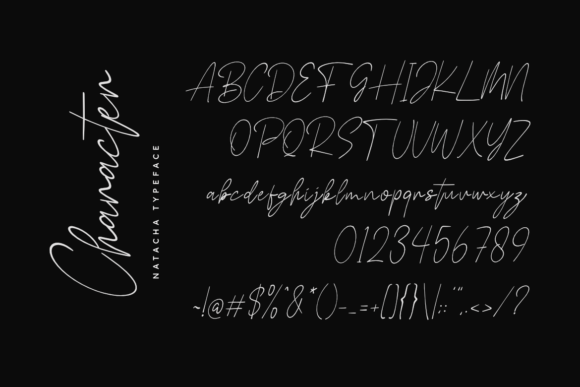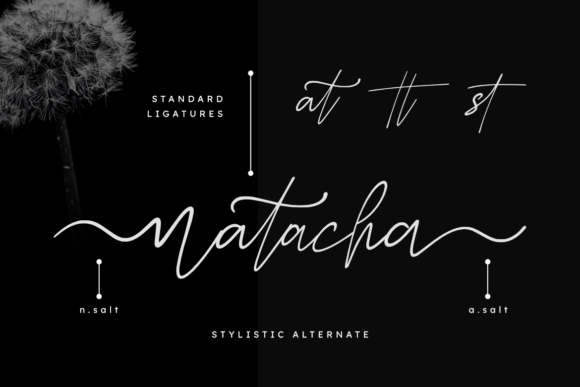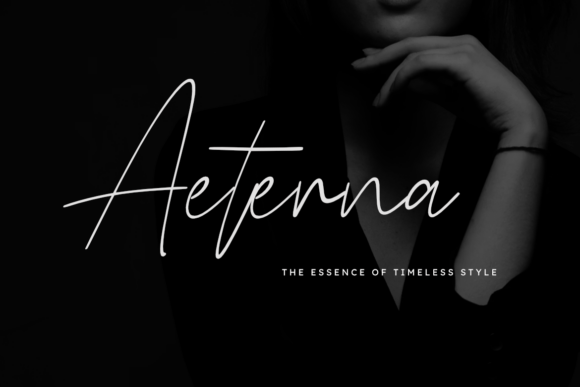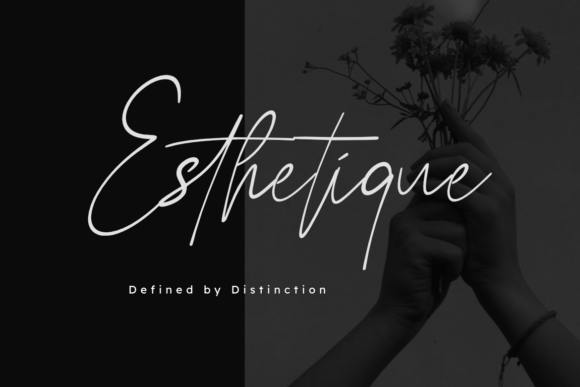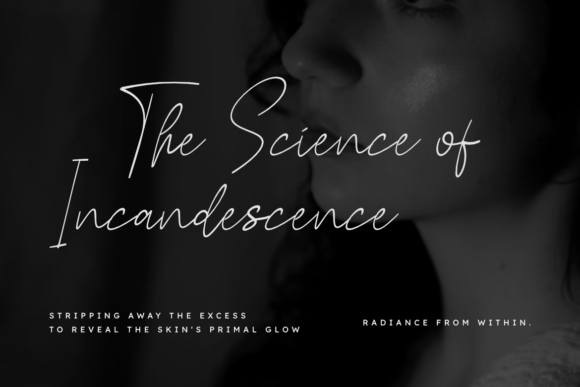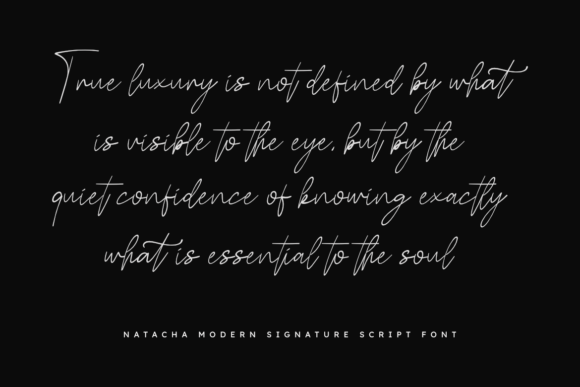
Introduction to Natacha Font
Imagine you’re working on a high-end branding project, and you need a font that exudes elegance and sophistication. You’re scrolling through your design resources, searching for the perfect script font to give your visuals a striking and professional look. Suddenly, you come across the Natacha Font – a modern signature script font that catches your eye with its refined structure and clean, handwritten lines.
As a designer, you know how valuable it is to have a high-quality font that can elevate your creative project to the next level. With its confident, sleek, and balanced design, the Natacha Font is perfect for personal signatures, professional luxury branding, fashion logos, and high-end social media layouts. And with its transparent background and compatibility with OTF and TTF formats, you can be sure that your designs will look great across all platforms.
Natacha Font
- Features a unique, modern design with a clean and elegant aesthetic
Honest Review: Natacha Font
As a designer, I’m always on the lookout for high-quality design resources to elevate my creative projects. The Natacha Font caught my attention, and I was excited to give it a try.
- Unique and elegant design: The Natacha Font boasts a beautiful, hand-drawn feel that’s perfect for adding a touch of sophistication to any project.
- High-quality glyphs: The font’s glyphs are crisp and clear, making it a great choice for both print and digital designs.
- Limited language support: The Natacha Font may not support all languages, which could be a limitation for designers working on international projects.
- Not ideal for bold typography: While the font looks great in smaller sizes, it may not be the best choice for bold, eye-catching typography.
Overall, I’m impressed with the Natacha Font’s unique design and high-quality glyphs. While it may have some limitations, it’s a great resource for designers working on creative projects that require a touch of elegance and sophistication.
Natacha Font
Tips for Getting the Most Out of Natacha Font
To get the most out of Natacha Font, use it on a transparent background to create a unique and eye-catching design. Experiment with different font sizes and colors to add visual interest to your project.
Natacha Font is perfect for creating invitations, posters, and other promotional materials. It’s also great for use in logos, branding, and other creative projects where a high-quality font is needed.